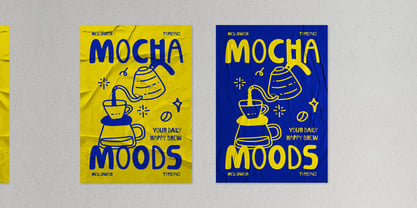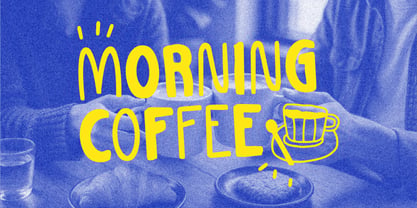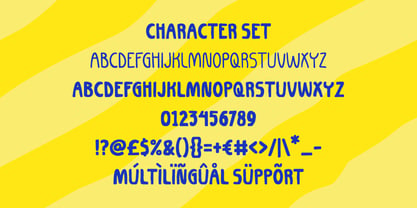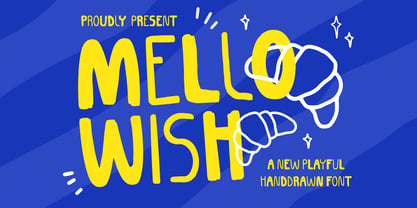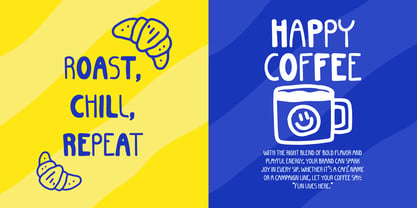
Mellowish
by Shanaf
The Mellowish Font Family was designed by Yesie Erma Yunita and published by Shanaf. Mellowish contains 1 styles. More about this family
Mellowish Playful Handdrawn Font brings a burst of joy and personality to every project. The letters are tall, rounded, and slightly uneven, giving a natural hand-crafted touch that feels spontaneous and friendly. Its medium-bold weight provides strong visibility while keeping a soft, casual rhythm that’s easy on the eyes. The subtle imperfections in each stroke make it feel authentic, capturing the energy of handwritten doodles and playful lettering. Mellowish Playful Handdrawn Font combines charm and clarity—ideal for those who want to create a design that feels fun, modern, and approachable. This font fits perfectly for logos, packaging, posters, headlines, stickers, children’s designs, and café branding. It also works great for greeting cards, invitations, magazines, and promotional materials that need a lively handmade feel. Whether you’re designing a cheerful quote or a brand identity, Mellowish Playful Handdrawn Font helps your message stand out with positivity and charm. Its quirky yet balanced structure keeps your design expressive without losing readability, making it an excellent choice for any designer who wants a touch of creativity and happiness in their typography.
Designers: Yesie Erma Yunita
Foundry: Shanaf